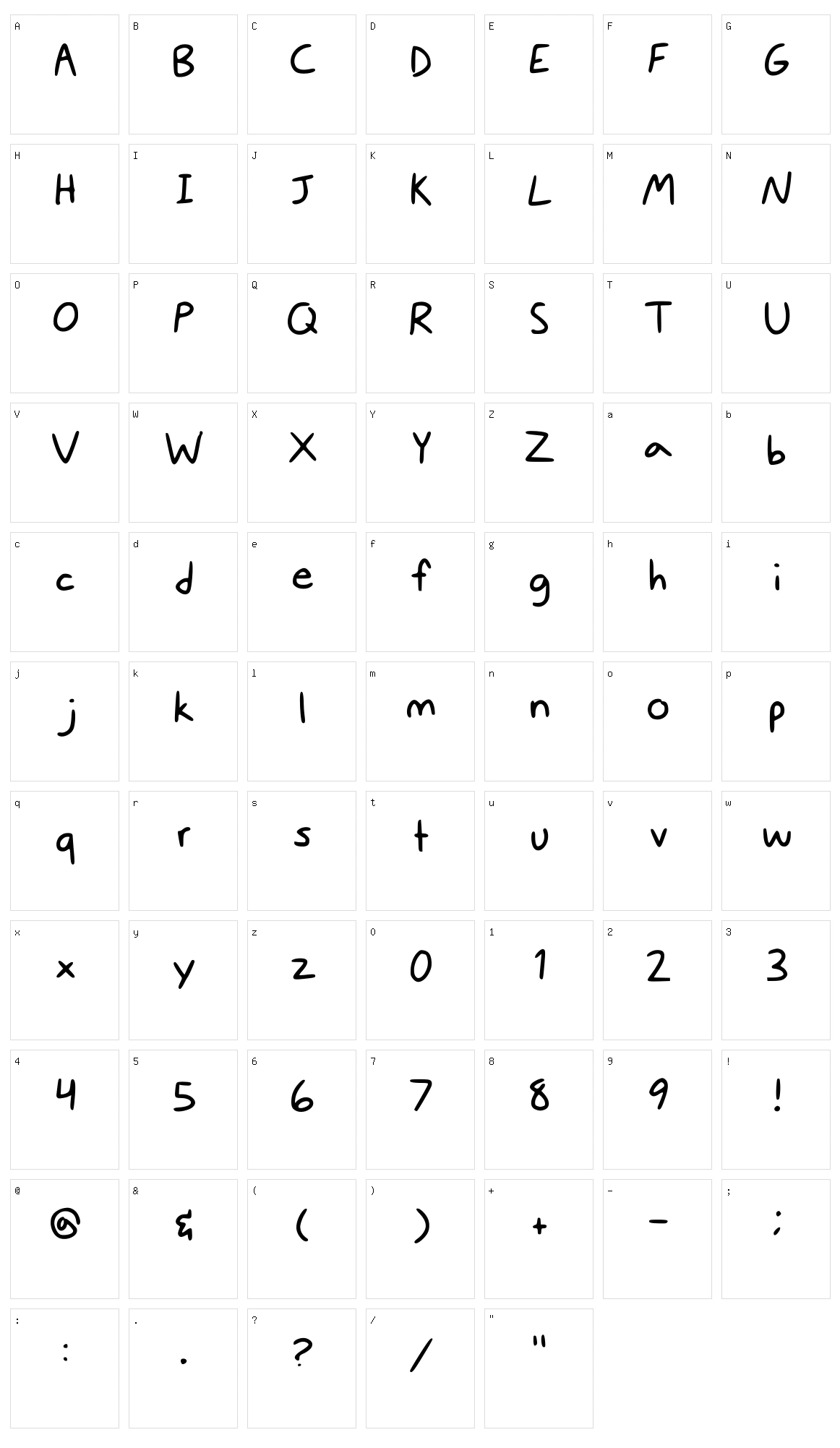
The free font Digital Handwriting is carefully designed by wirm, showcasing a thoughtful balance of creativity and usability and falls under the Script font style. When you download the ZIP file, it contains only 9.58 KB of font files, making it lightweight and quick to download. Please review the license details below to understand permitted usage and distribution rights. If license information is not available, we recommend using this font for personal projects only or contacting the author directly for commercial usage permissions.